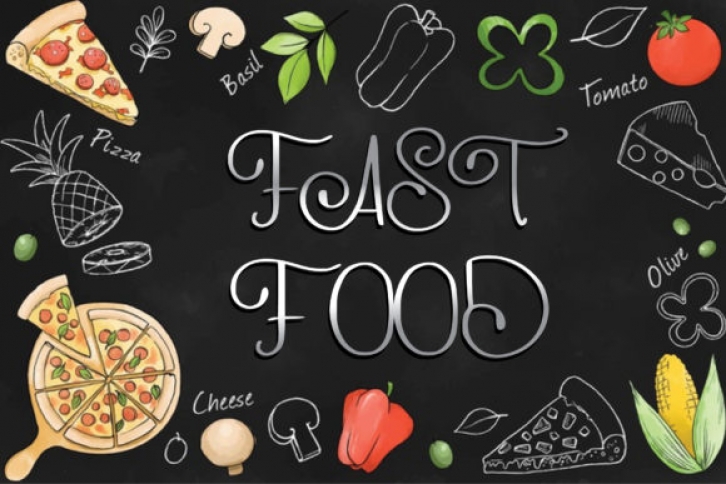
Rasa Italia is an incredibly original and lovely handwritten font. This special look will appeal to a wide range of crafty ideas, from letterheads and titles, to stationery.